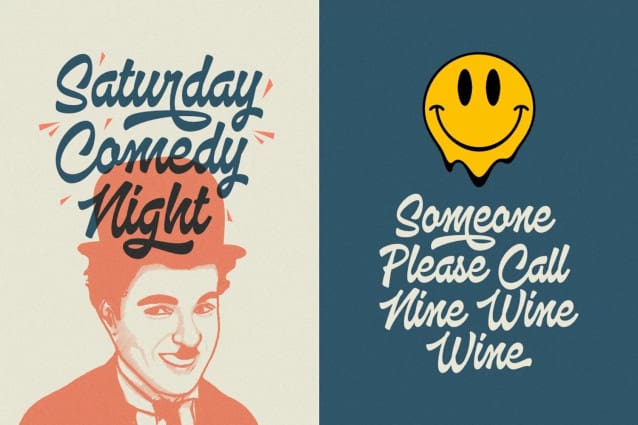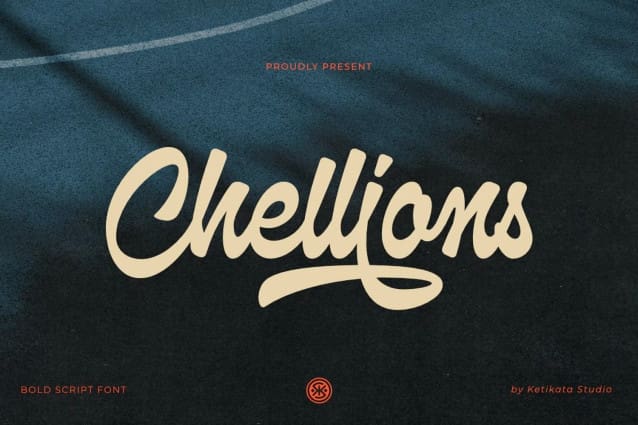
Chellions Script Font
Chellions Script Font, the bold script font that’s been crafted with the energy and dynamic spirit of sports graphics.
Imagine the thrill of a baseball game, the rush of a basketball dunk, or the excitement of a football match—all captured in each bold stroke of Chellions.
But don’t box it into just the sports world; this font breaks boundaries, finding its place in streetwear, music branding, and even corporate design.